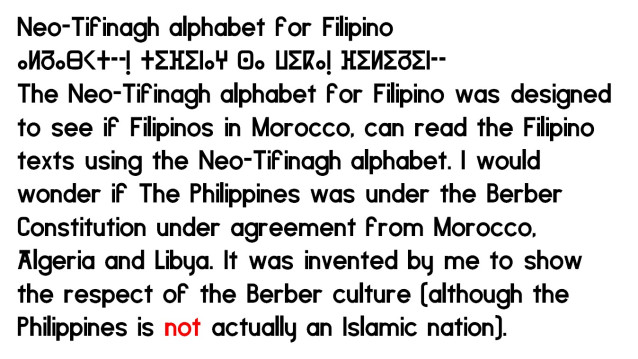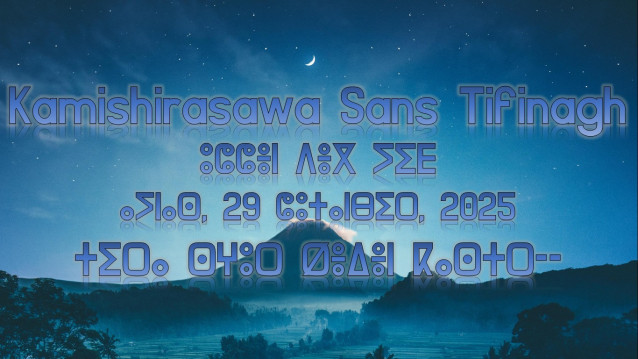
Kamishirasawa Sans Tifinagh Font – This is the Tifinagh extension of Kamishirasawa Sans, the sans-serif font I made back in 2018. It includes almost all of the Tifinagh letters needed to write the Berber languages in as well as my adaptation of Neo-Tifinagh script that I would be used to write the Filipino language, but missing the consonant joiner from it. For more information, please see the readme file provided.
Kamishirasawa Sans Tifinagh Font